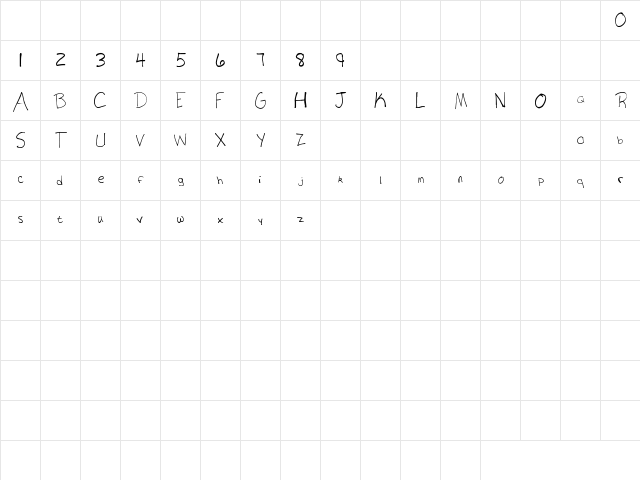
Look To The Sky Regular
Look To The Sky is a composed and adaptable typeface that performs quietly and consistently across a wide range of design contexts.